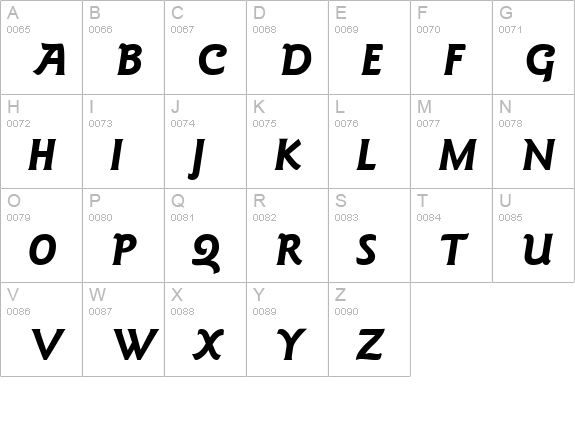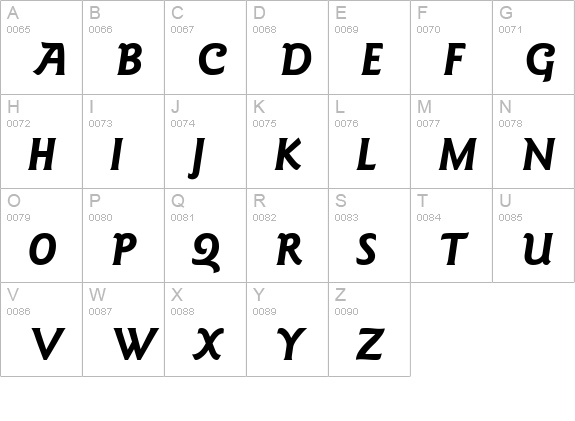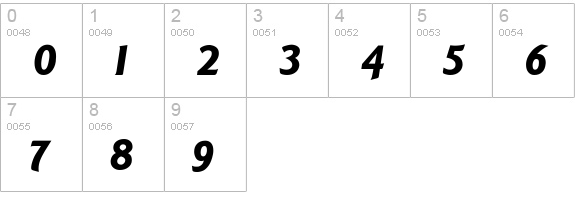
Goudy Bold Italic Font Details
Goudy Bold Italic is a strong, high-contrast, italic variant in the Goudy typeface family \xE2\x80\x94 well suited to headlines, attention-grabbing titles, and strong calls-to-action.
Goudy Bold Italic is a striking and elegant typeface that exudes sophistication and timeless charm. Its bold and italicized characteristics create a sense of drama and flair, making it perfect for headlines, titles, and other attention-grabbing text. The Goudy Bold Italic font strikes the perfect balance between traditional and modern, making it versatile for a wide range of design projects. What's even better is that Goudy Bold Italic is available for free download at FontsMarket.com. This means that you can easily access and use this exquisite font in your creative endeavors without any cost. Don't miss out on the opportunity to enhance your designs with the beauty and allure of Goudy Bold Italic - download it for free today!